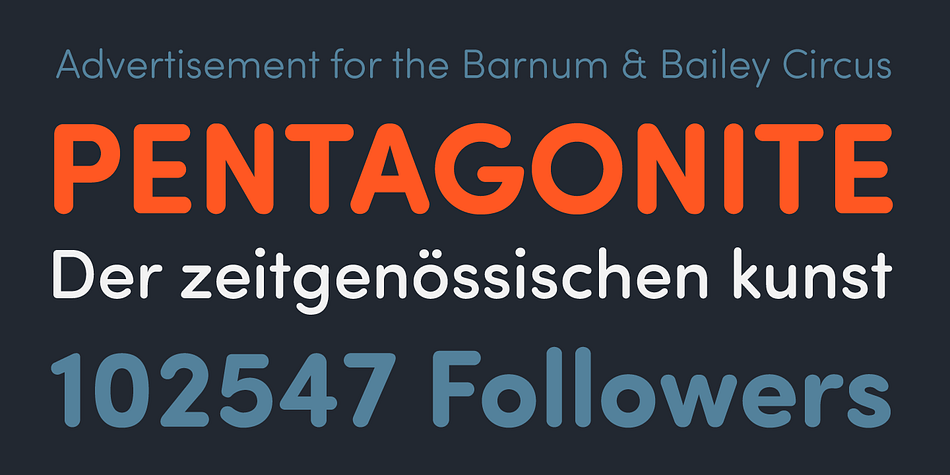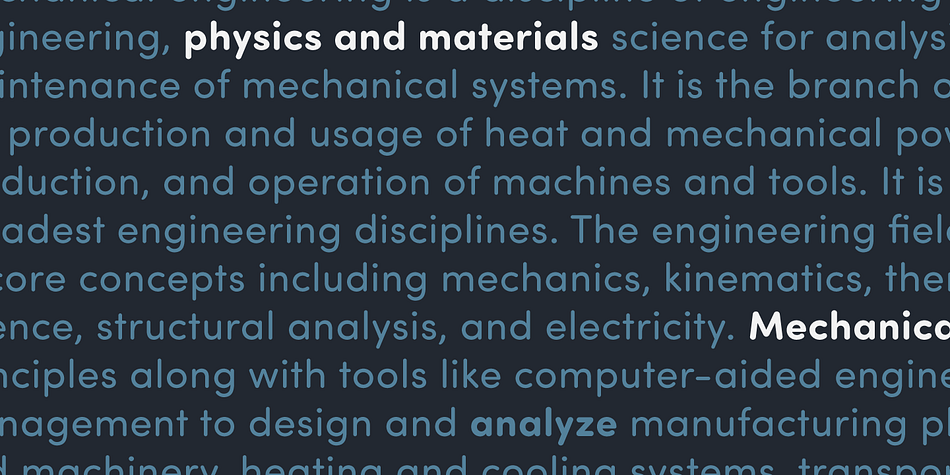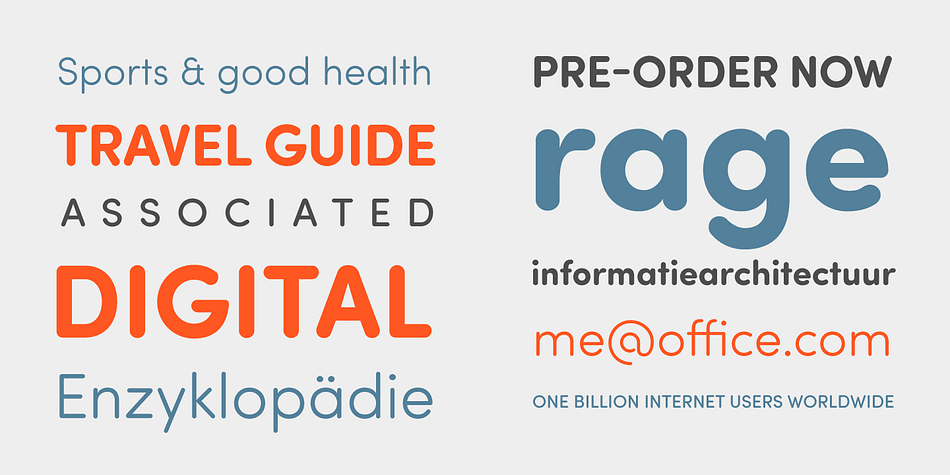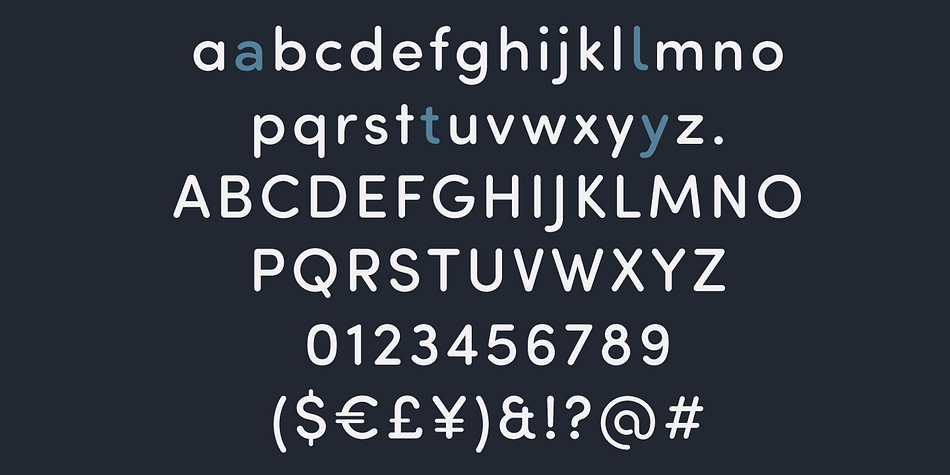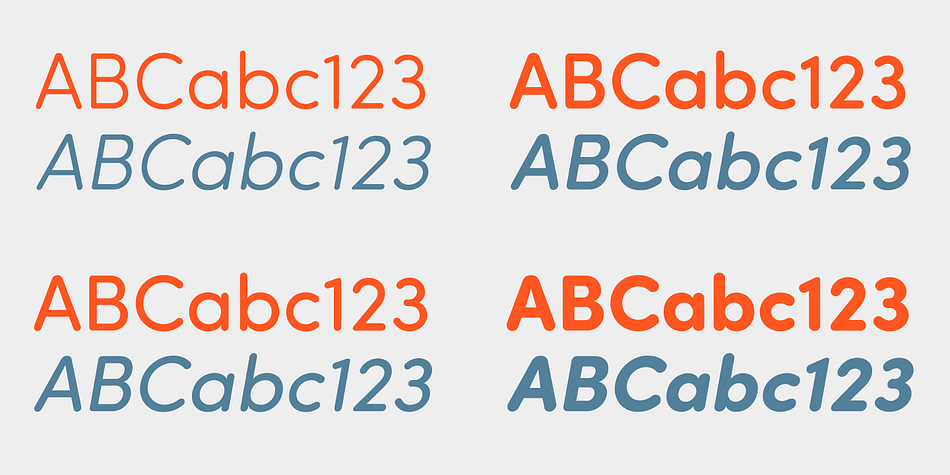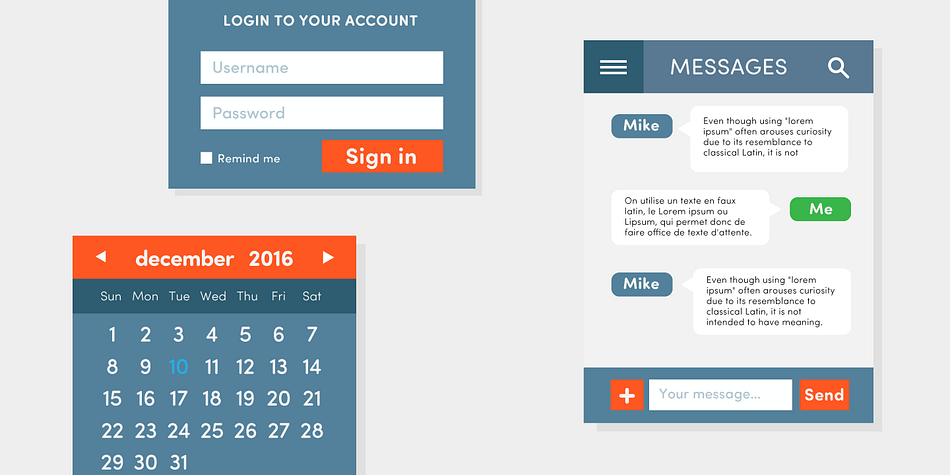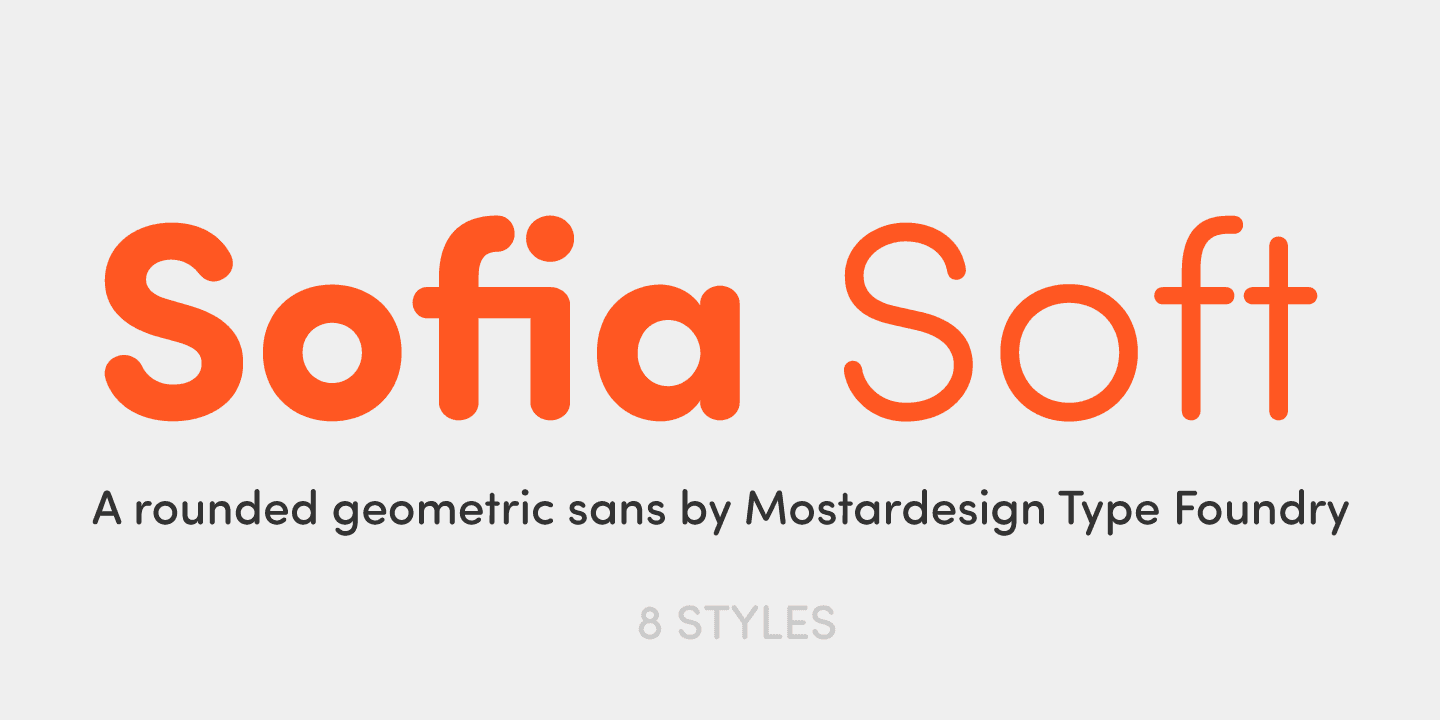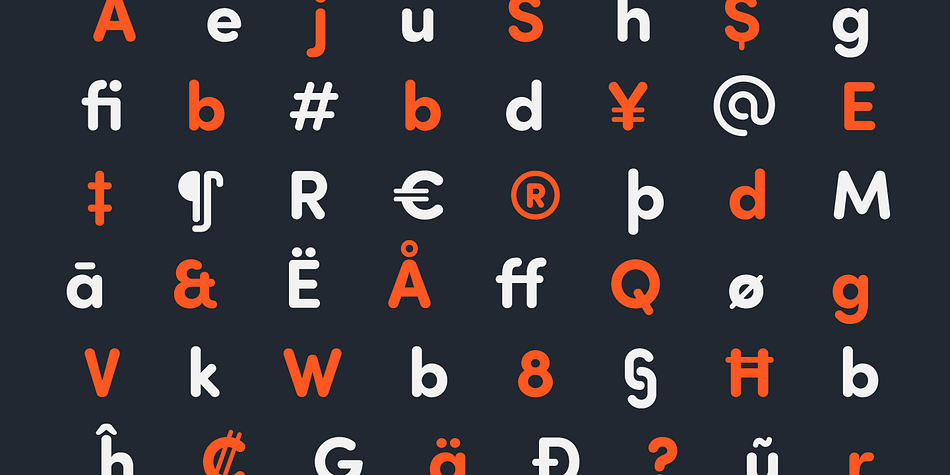
Sofia Pro Soft is a sans serif font family. This typeface has eight styles and was published by Mostardesign.
Sofia Soft is the rounded version of the successful Sofia Pro family. This softer variation with rounded strokes gives Sofia Soft a unique geometric sans friendly aspect for display uses, texts and headlines, branding, signage, print and web design projects.
Sofia Soft is the ideal companion of Sofia Pro and improve versatility of the global font family with optimized spacing and kerning for print and display. Sofia Soft supports extensive languages such as Western European, Central and Eastern European languages. Available in 8 versatile styles, all weights contain the same Opentype features than his sister with case sensitive forms, stylistic alternates, localized forms, standard ligatures, lining and oldstyle figures.